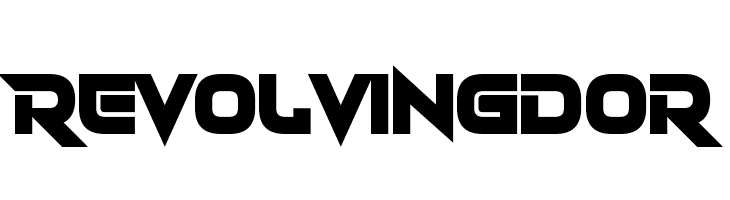
A playful, casual handwritten font with fluid strokes and a natural flow.
A classic serif font with elegant flourishes and modern touches.
A bold, decorative symbol font with esoteric and mystical icons.
A bold, distressed font with a vintage, gritty texture.
A decorative dingbat font featuring iconic character illustrations.
A bold, futuristic font with geometric shapes and sharp angles.
A bold, fragmented font with a shattered glass effect.
A bold, brush-style font with dynamic, expressive strokes.
设计师偏爱 DJB Color Me Chic, SigismundoDiFanti, Symbats, Pulp Headlines and Elvira Dingbats,因为其造型干净、适用范围广—— 从品牌识别到落地页、海报都能胜任。